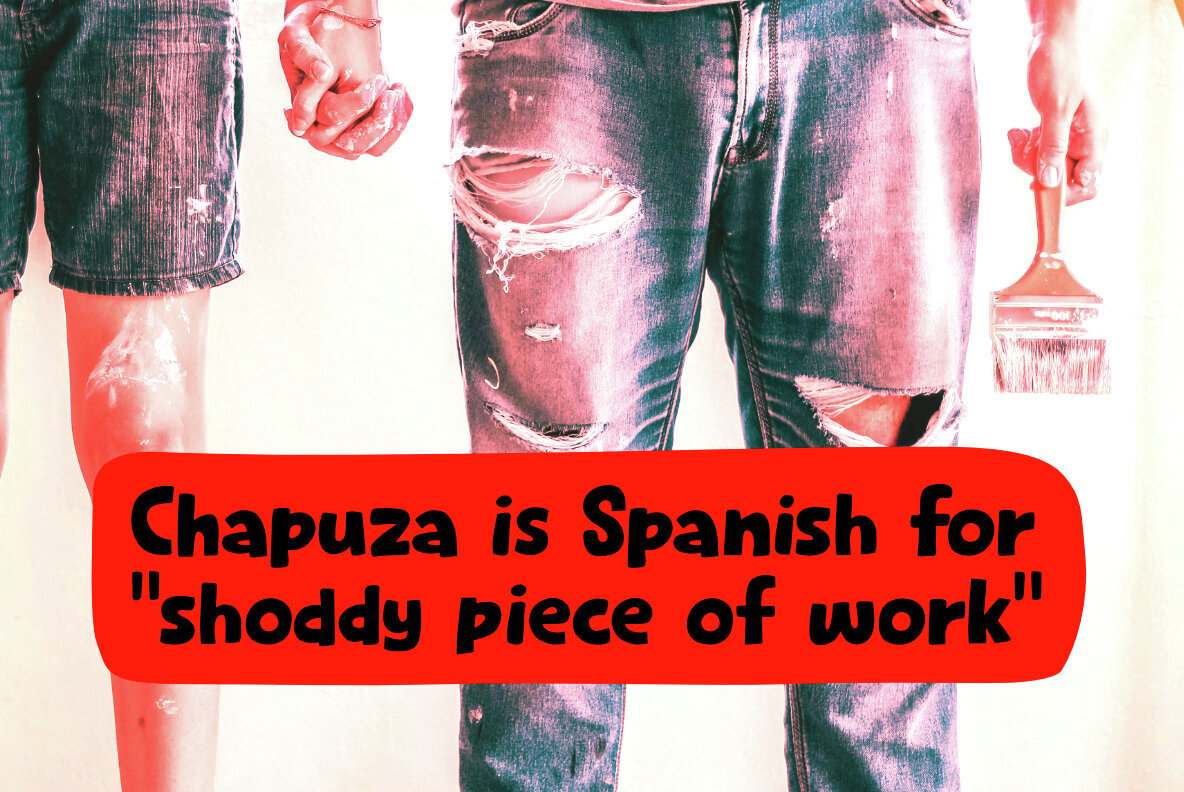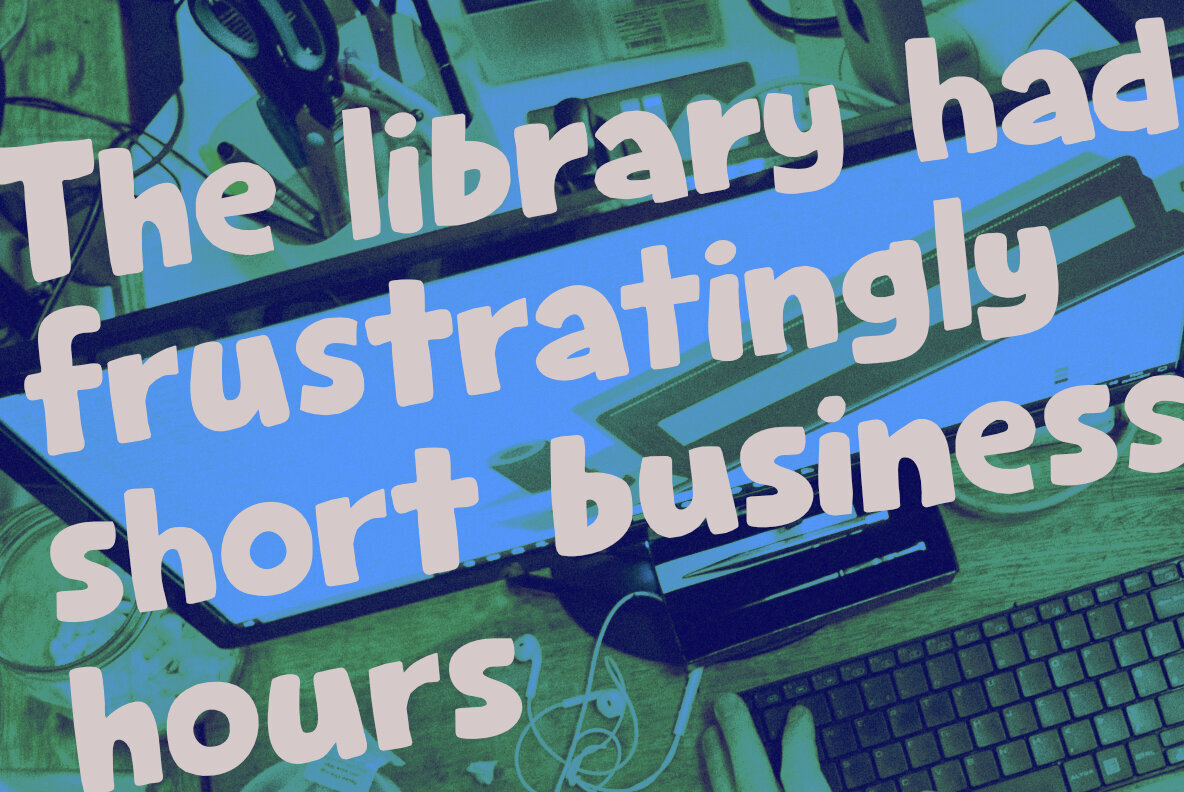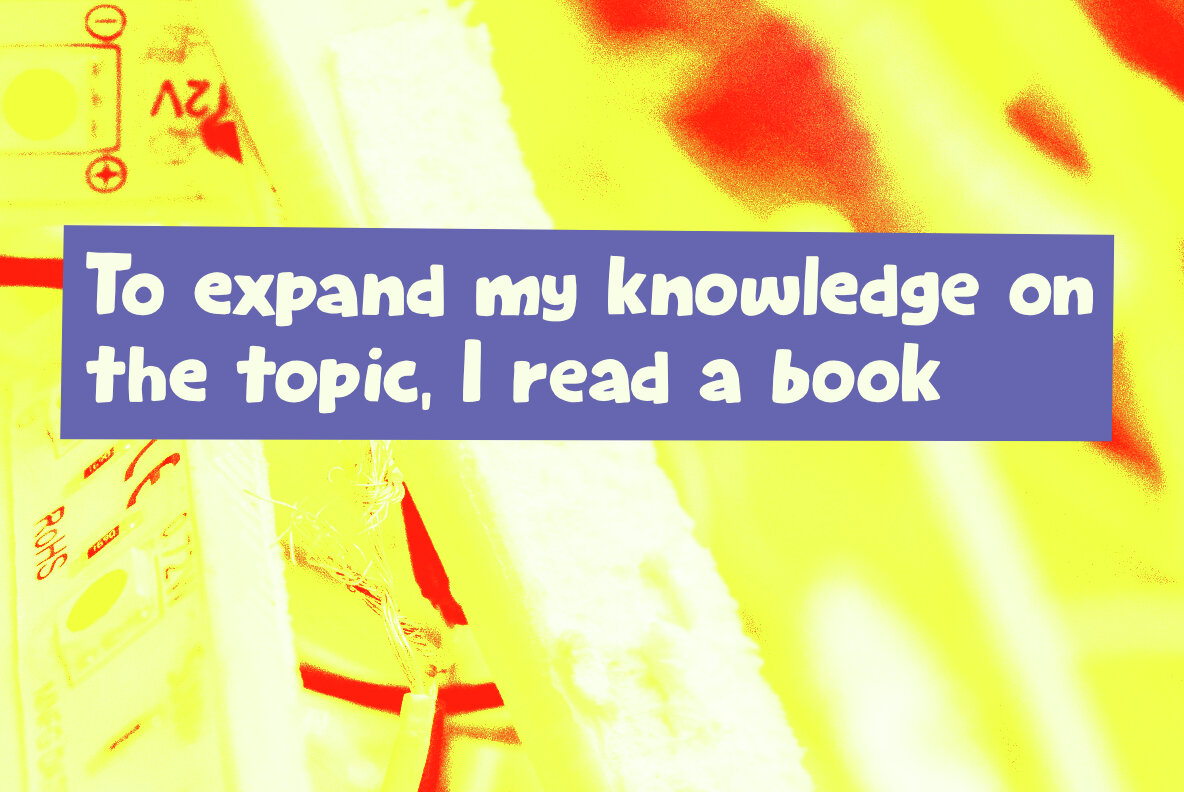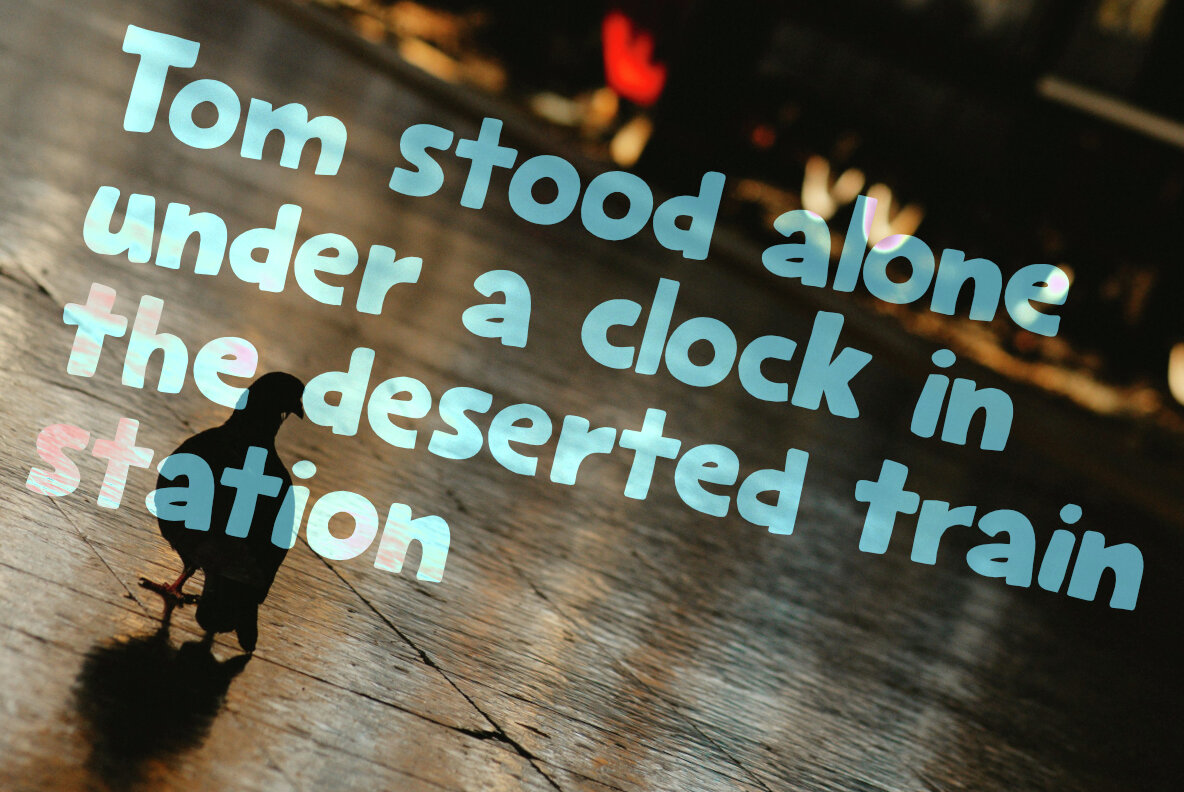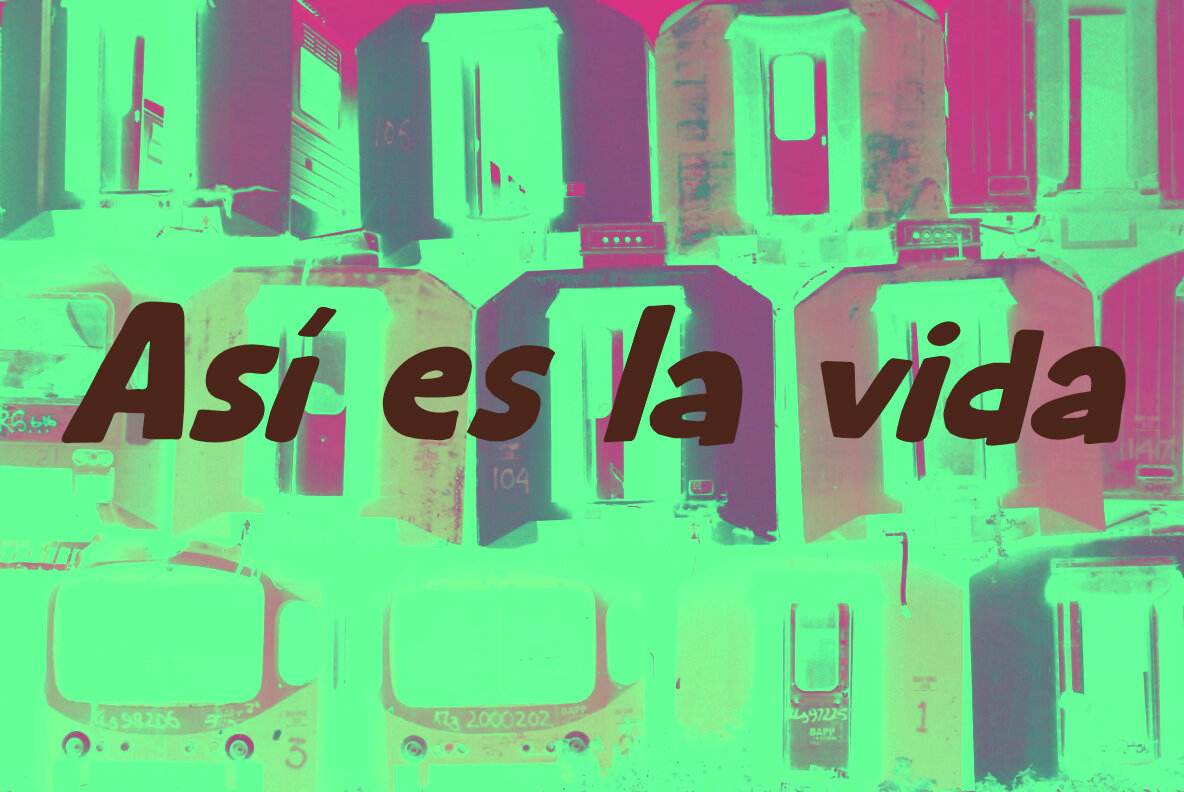
Chapuza Font
Chapuza is a playful and cartoon-like font, perfect for children's books, posters, and library displays. Despite its name, which humorously means 'shoddy piece of work' in Spanish, Chapuza brings a sense of whimsical charm and creativity to any project.
This vibrant typeface includes extensive language support, making it versatile for various linguistic applications. Additionally, it features an auto-rotating set of contextual alternates, offering dynamic text variations that enhance its playful aesthetic. Chapuza is an excellent choice for adding a touch of fun and creativity to your design projects.